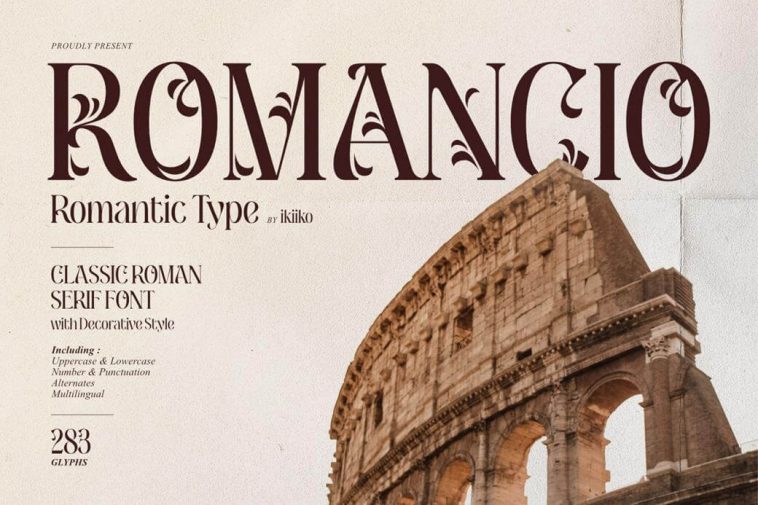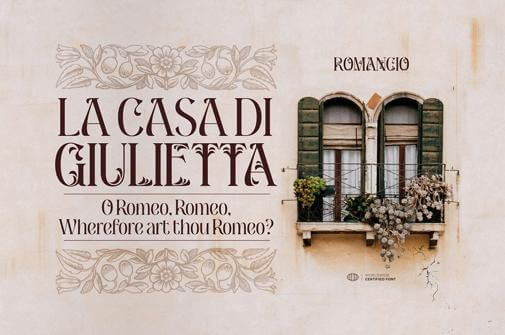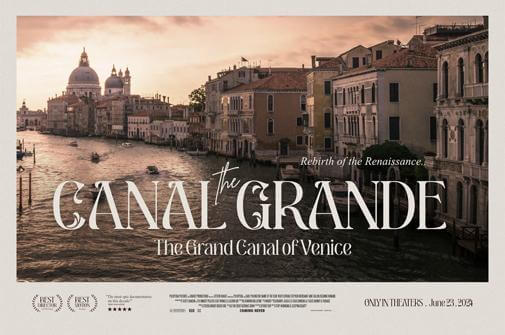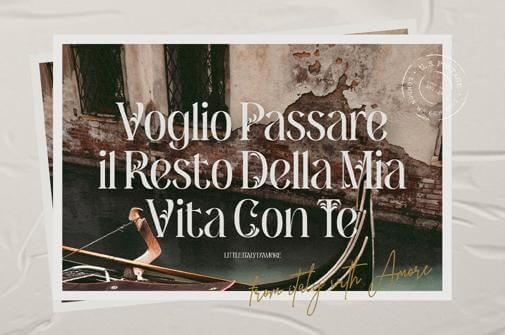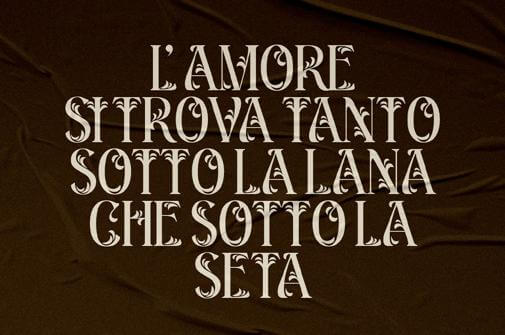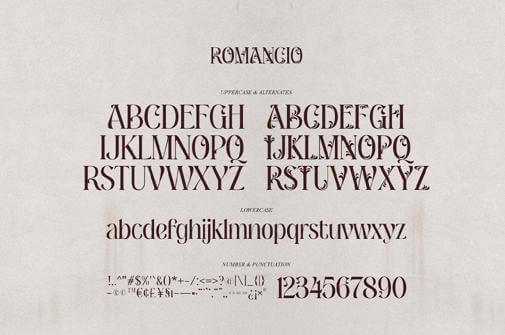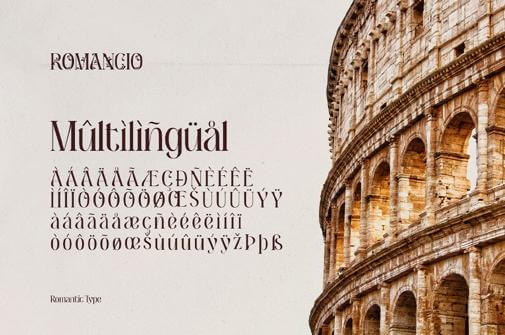
Romancio — Romantic Type Free Font
Romancio — Romantic Type
Indulge in the artistic allure of Romancio, a captivating and romantic type free font that transports you to distant lands and dreamy journeys. With intricate serifs and soft edges, this font adds a touch of sophistication to your designs. Embrace its versatility with upper and lowercase letters, numbers, punctuation, alternates, and multilingual support, ensuring you’re well-equipped for any creative project. Let Romancio infuse romance and elegance into your typography, making each design a visual ode to love and beauty. Download this free font today and embark on a typographic adventure.